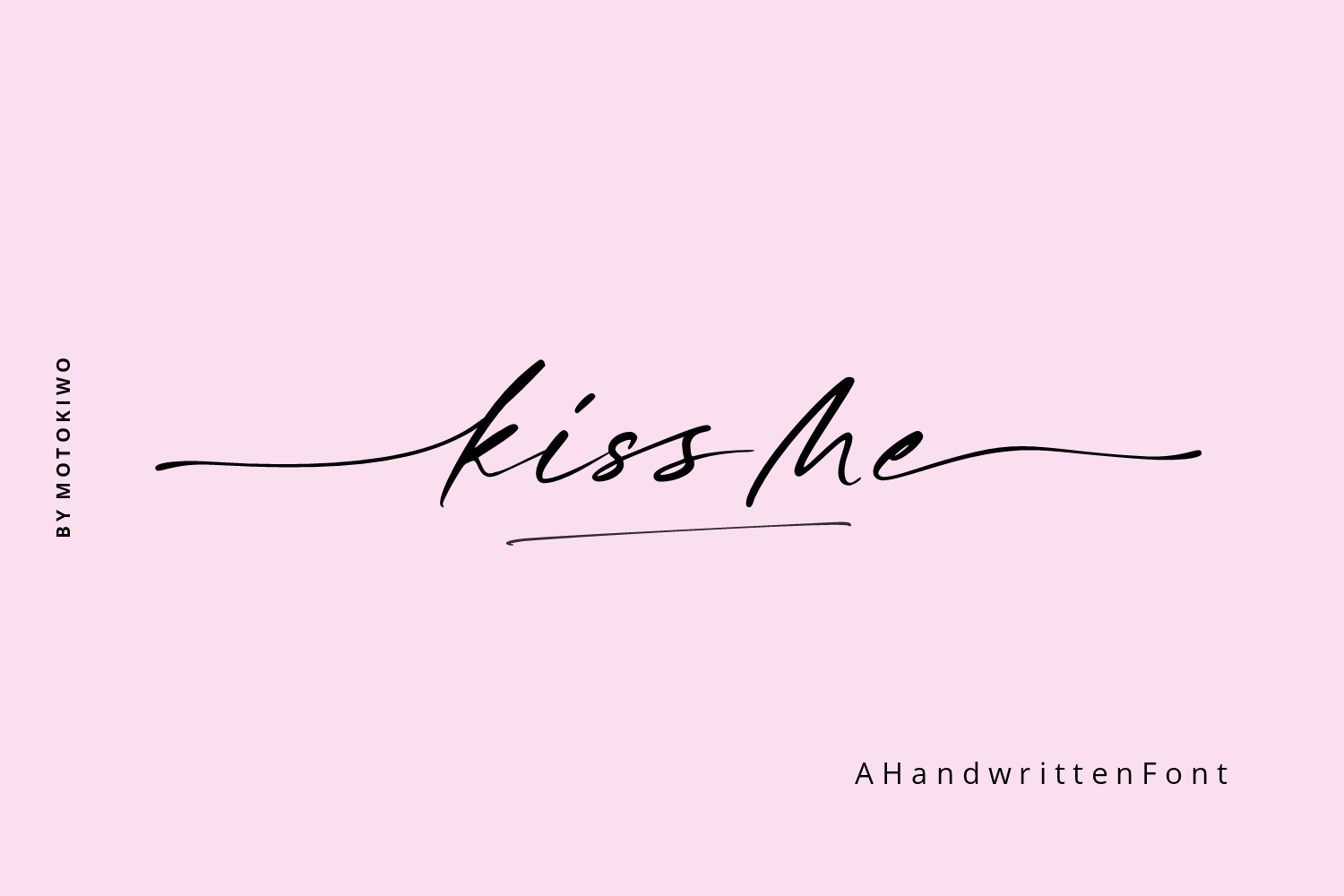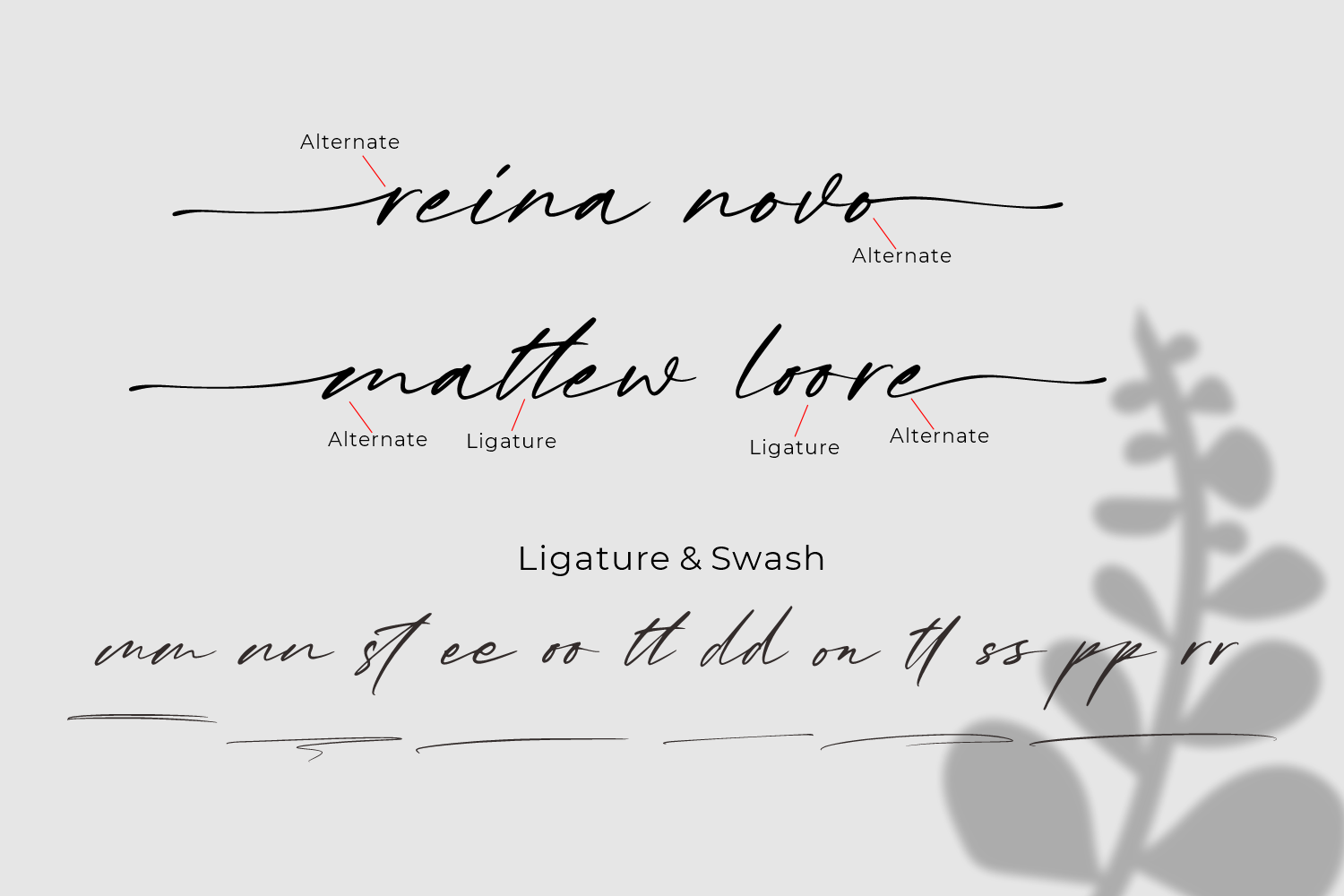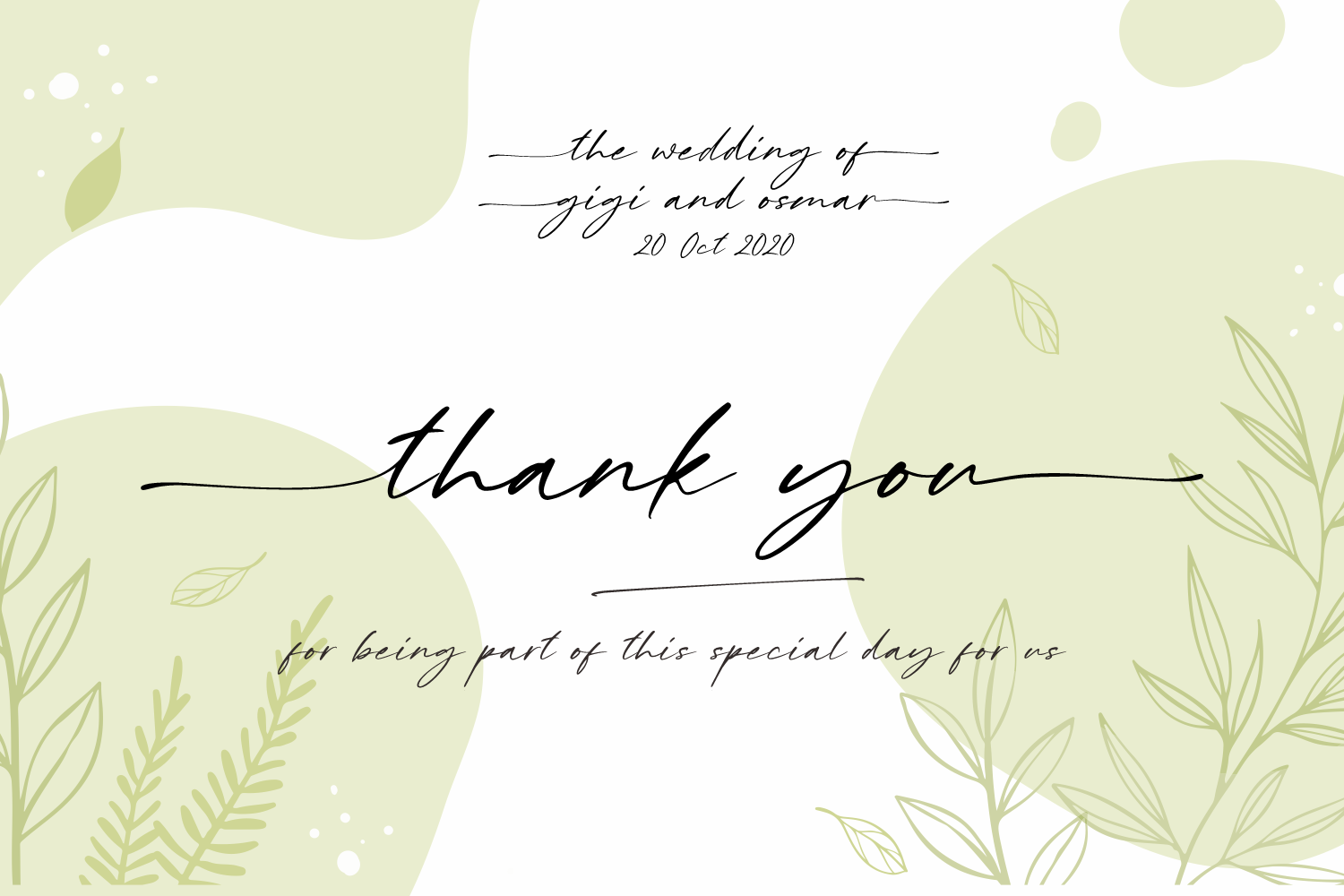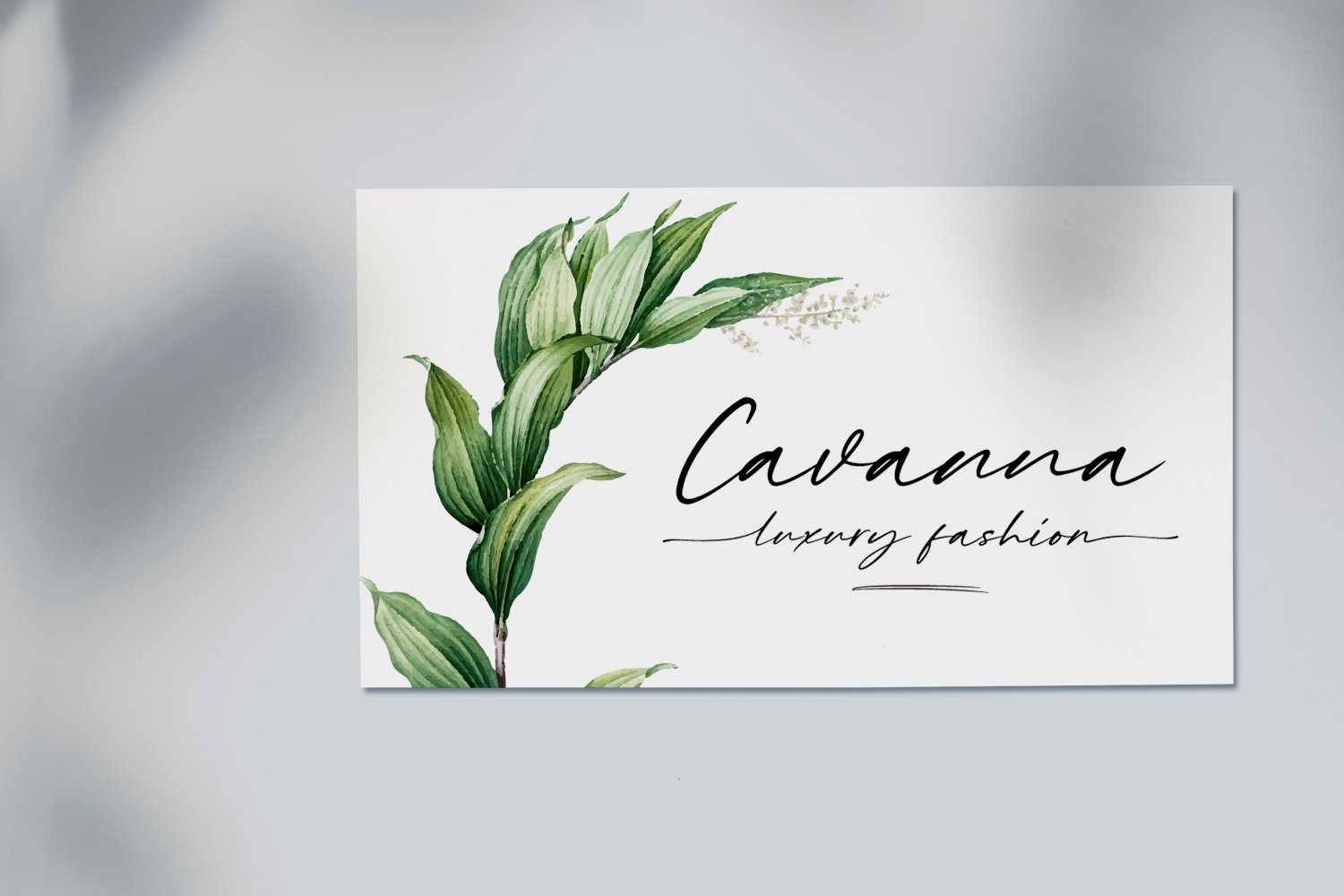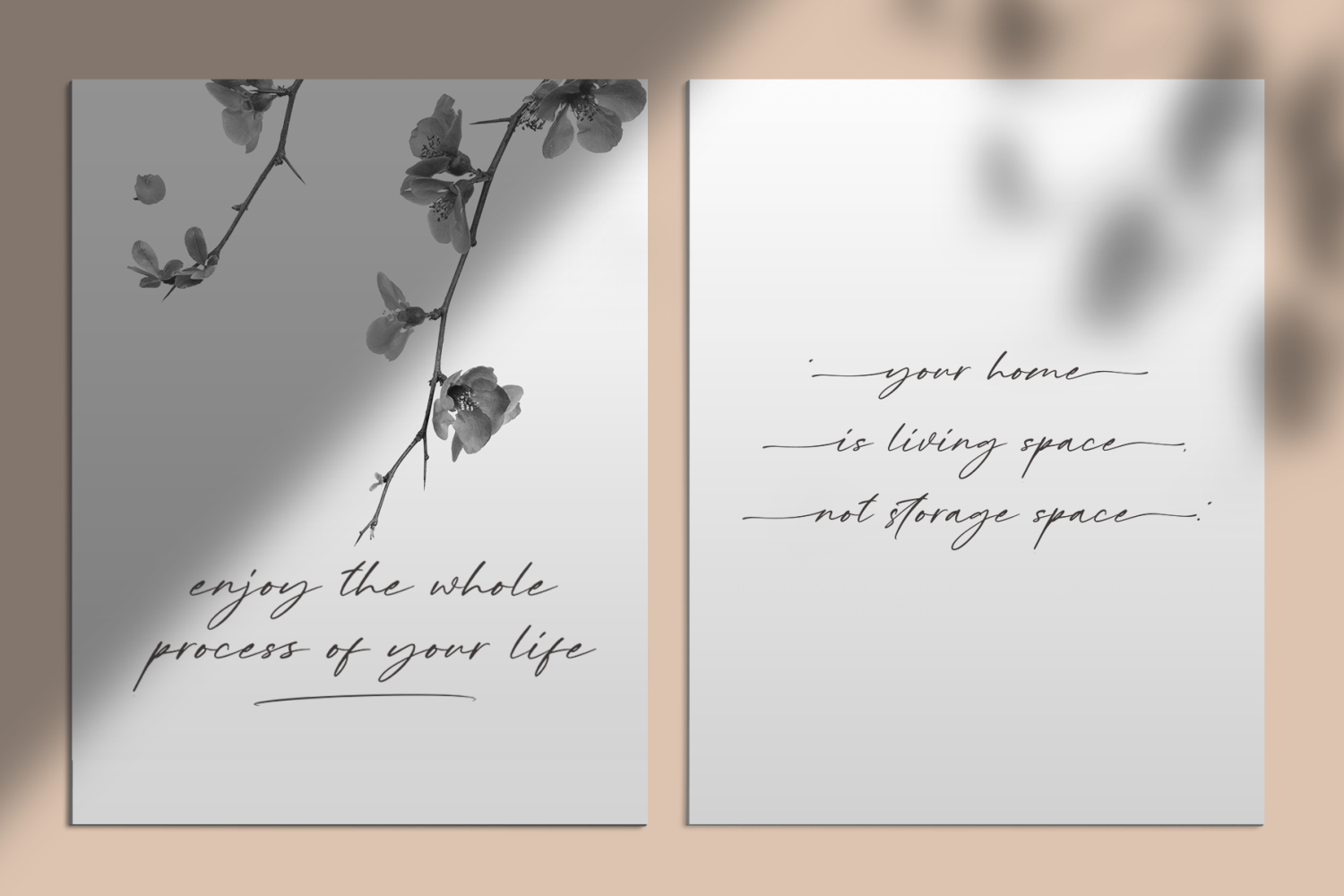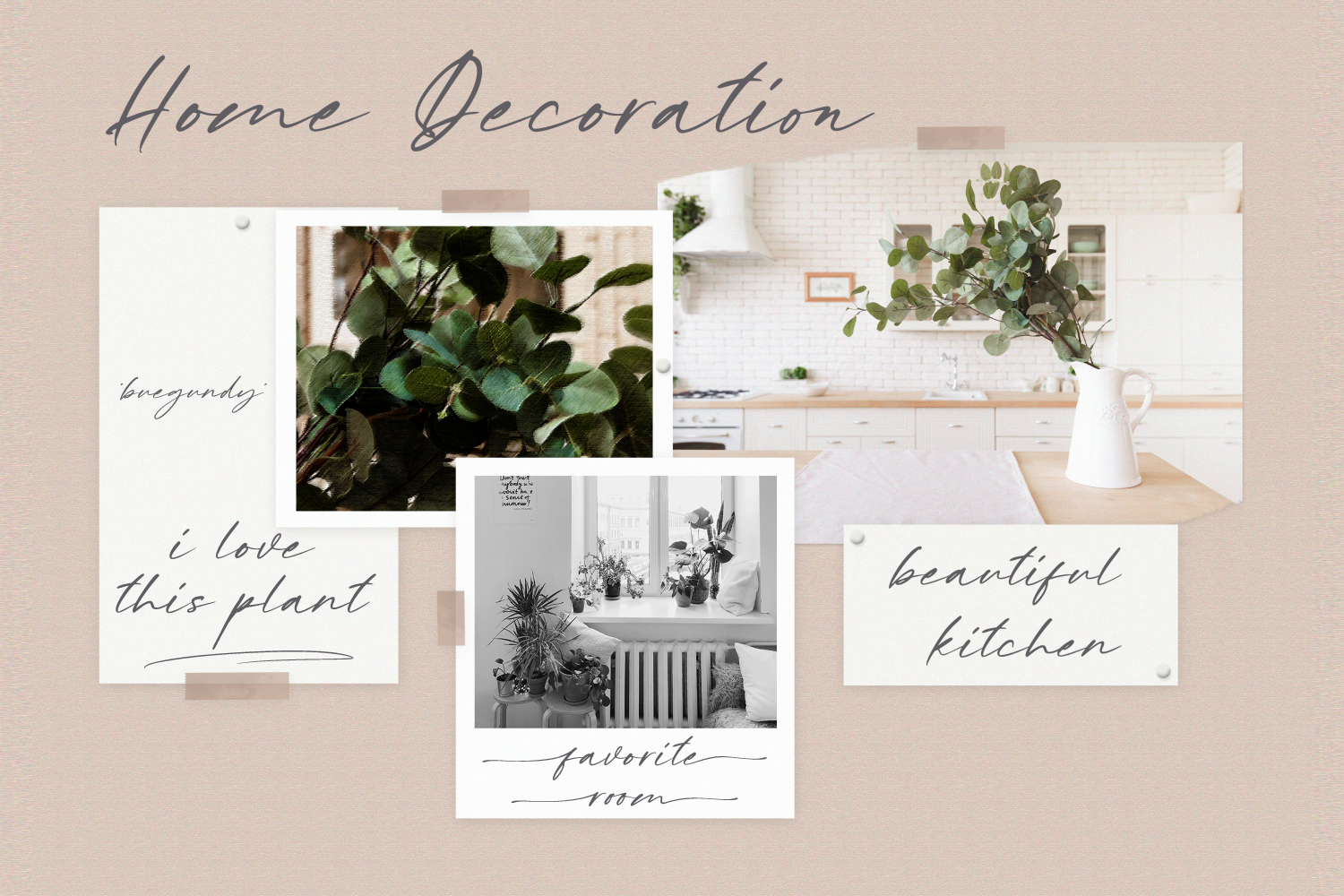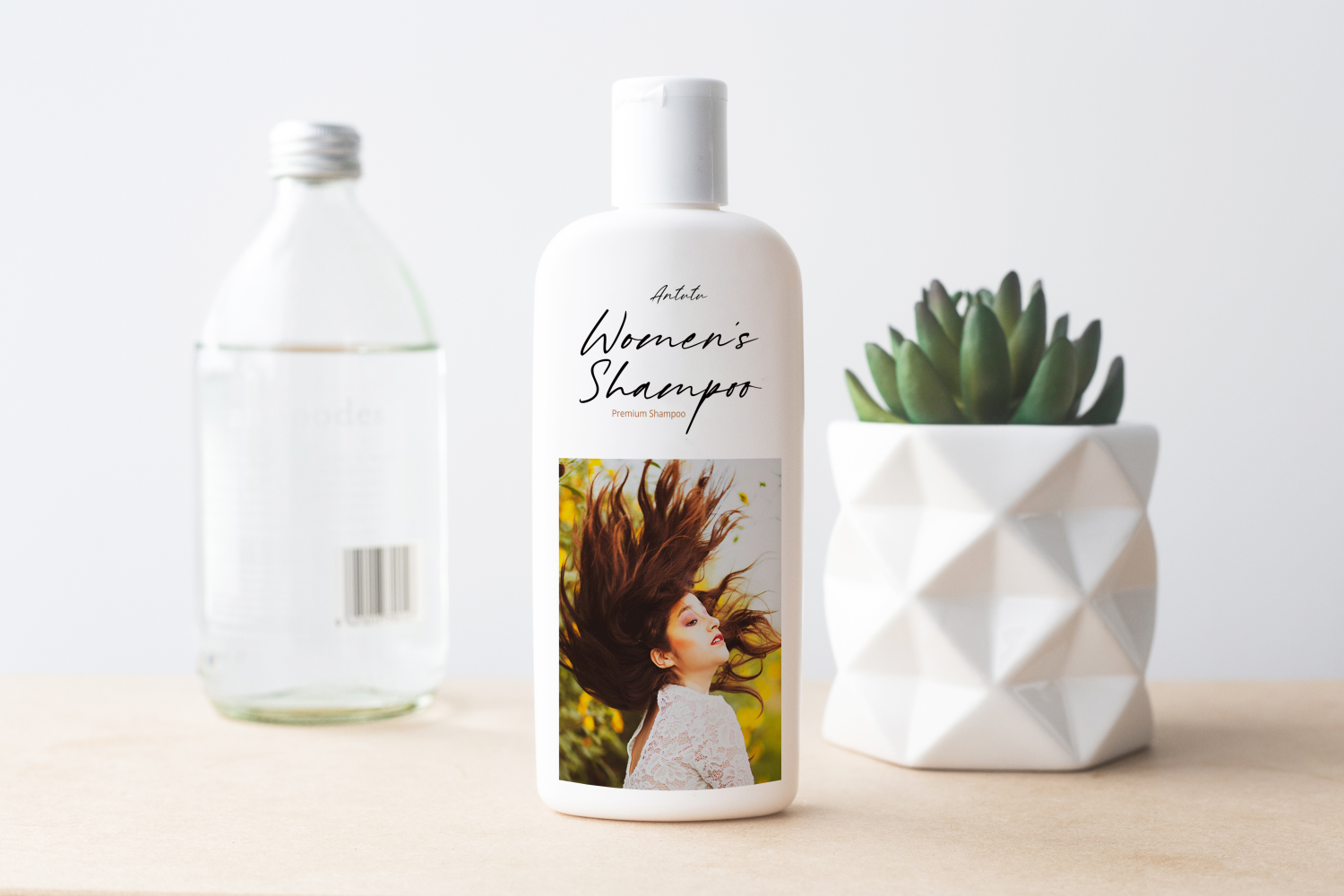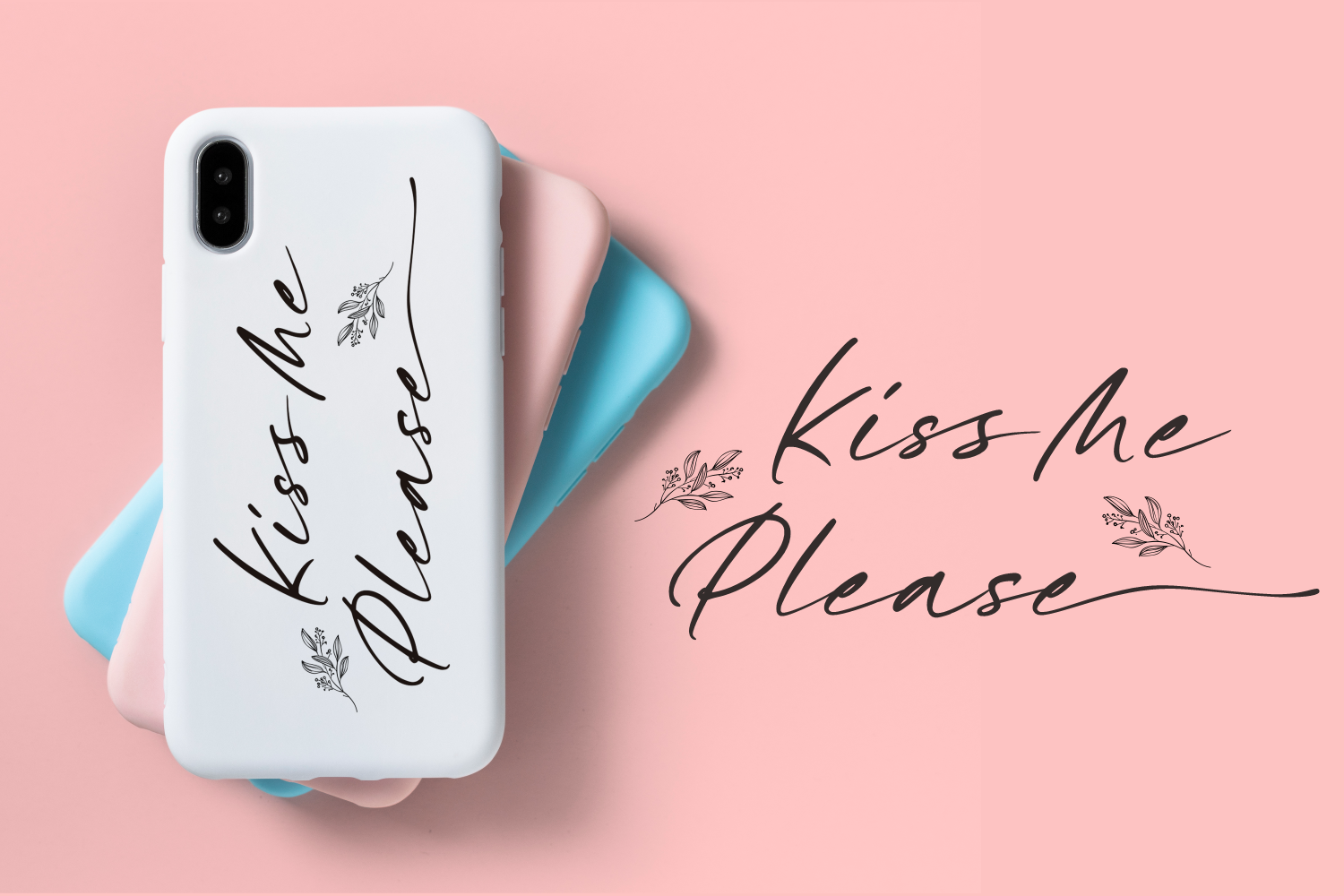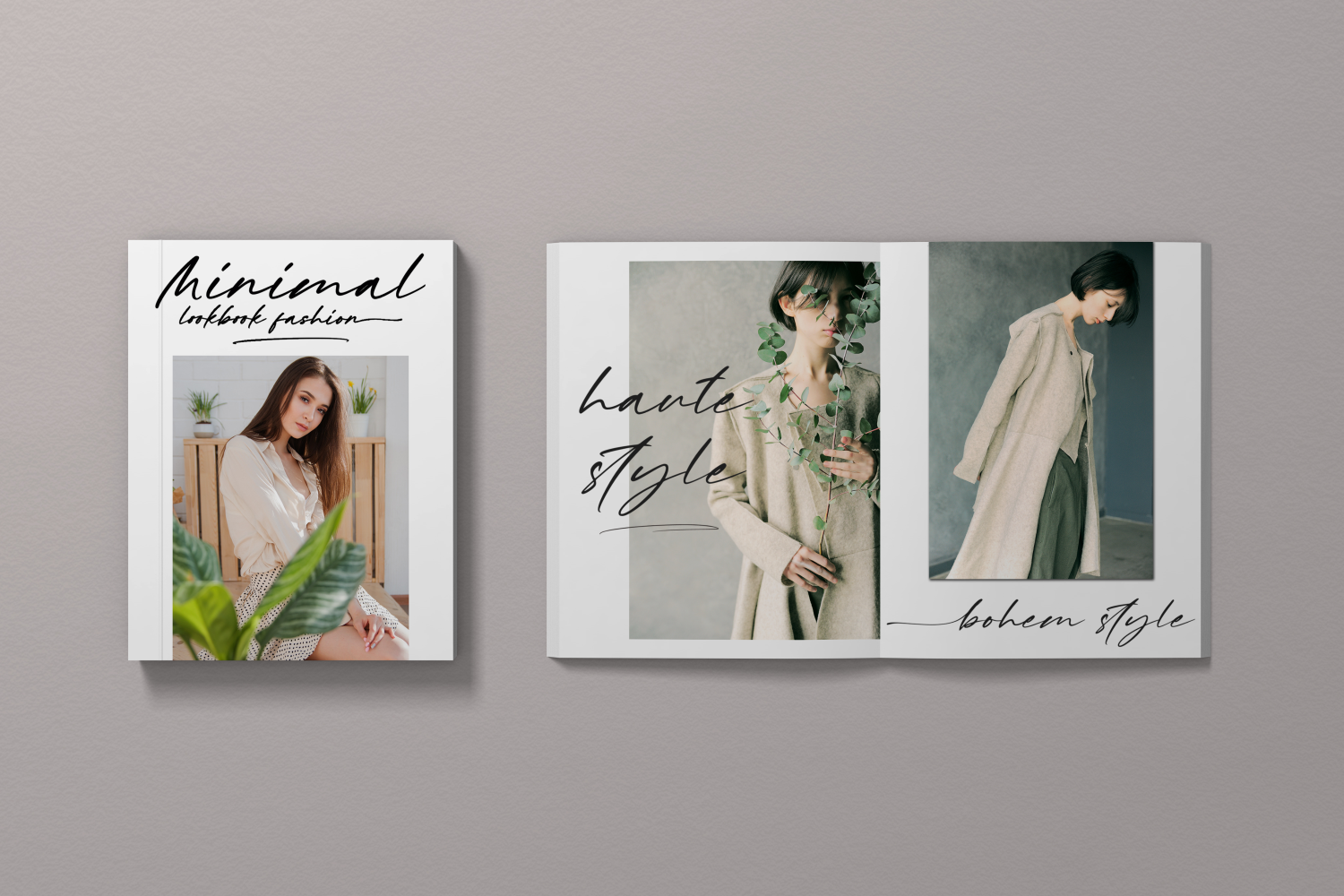
Kiss Me, a Chic Handwritten Font
Kiss Me is a fluid, monolinear script font that mimics the organic flow of a felt-tip pen. The letterforms feature a delicate, high-contrast stroke with varying pressure, resulting in a natural, handwritten appearance. Its design is defined by long, sweeping horizontal swashes that extend from the beginning and end of words, creating a sense of movement and interconnectedness. The font includes a variety of ligatures and stylistic alternates that allow for customized connections between characters, ensuring a bespoke look in any layout.
This script is well-suited for applications that require a personal, sophisticated touch. It works effectively for fashion lookbook headers, editorial titles, and boutique branding materials. The graceful, elongated flourishes make it a strong choice for invitations or high-end social media graphics where a refined, human-centered aesthetic is desired.